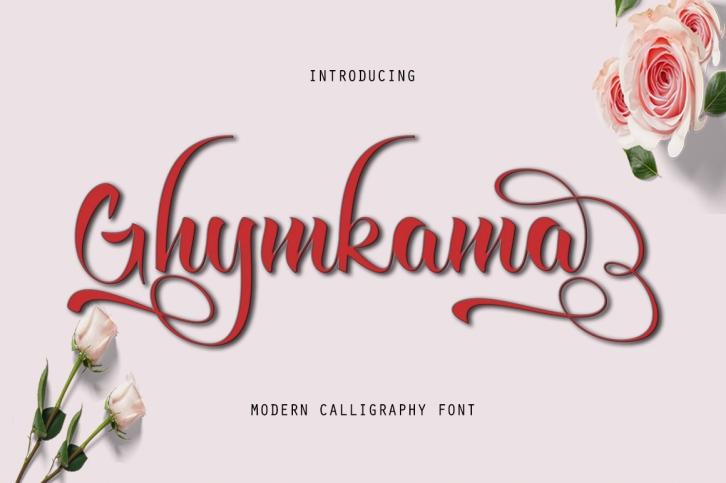
Ghymkama Slant is a great font that was designed by Sapre Studio. Imagine the amount of combinations you can create using this font! The archive is 18.50 MB and it was released on October 2, 2019. Ghymkama Slant looks beautiful on wedding invitations, greeting cards, logos, posters, labels, t-shirt designs, logos, business cards and is perfect for use in ink or watercolor works, fashion, magazines, packaging and food menus, children's books and more!